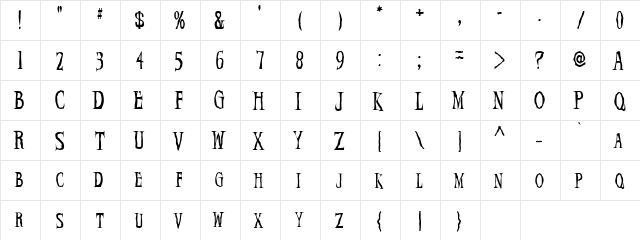
Bocasso Plain Regular
Design Context for Bocasso Plain Typeface
Bocasso Plain is a composed and adaptable typeface that performs quietly and consistently across a wide range of design contexts.